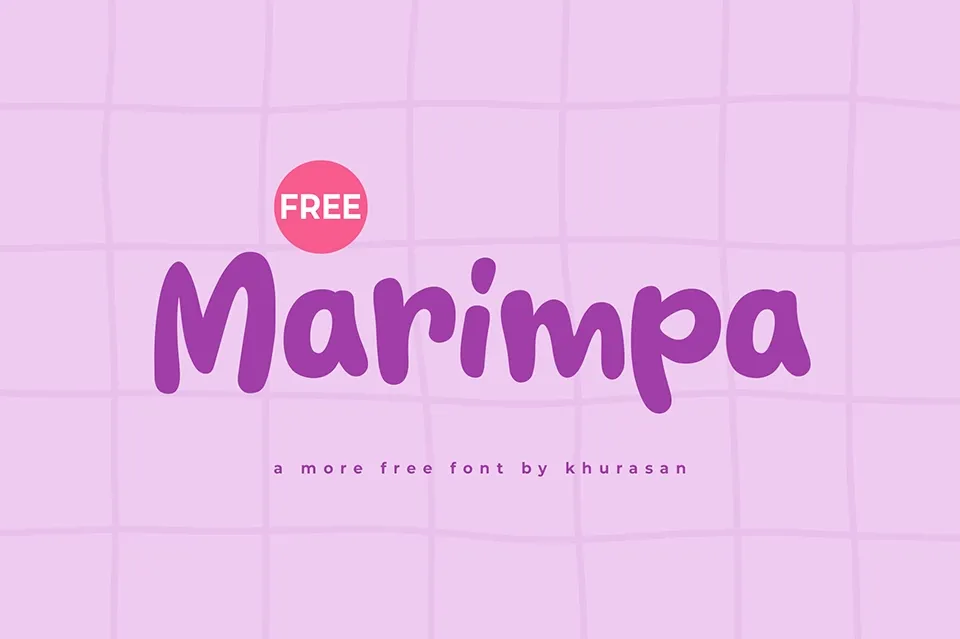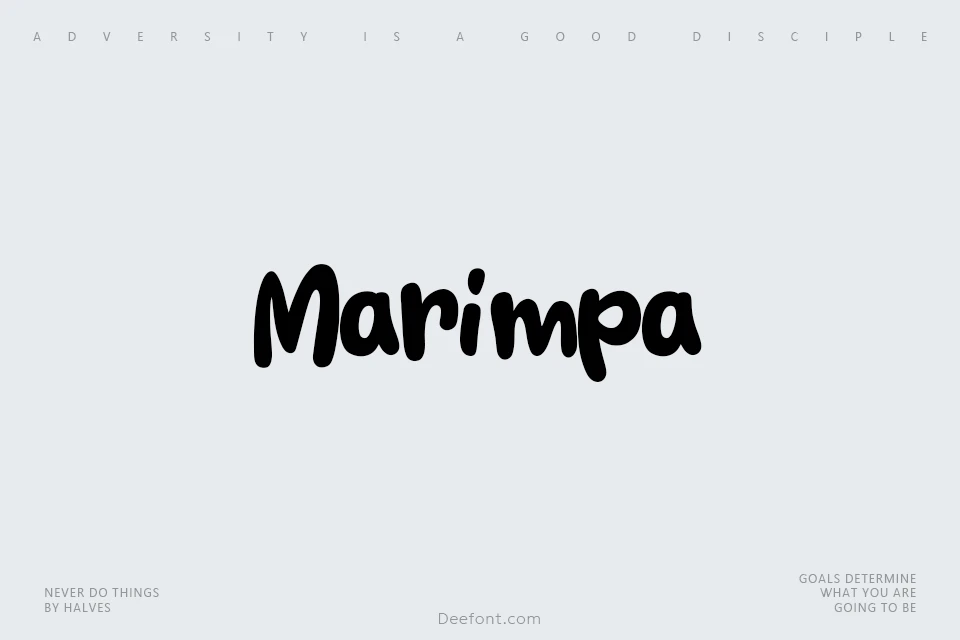
Marimpa Font
Marimpa Font is a fun and playful typeface designed to bring energy and joy to your creative projects. Featuring bold, rounded letterforms with a handcrafted aesthetic, this font is perfect for cheerful designs such as posters, children’s books, social media graphics, and branding. Its quirky style adds personality and warmth, making it ideal for casual and lighthearted themes. Marimpa Font ensures excellent readability while delivering a unique and vibrant look that stands out. Whether used for personal or professional purposes, this font is a fantastic choice for designs that aim to inspire positivity and creativity with its lively character.